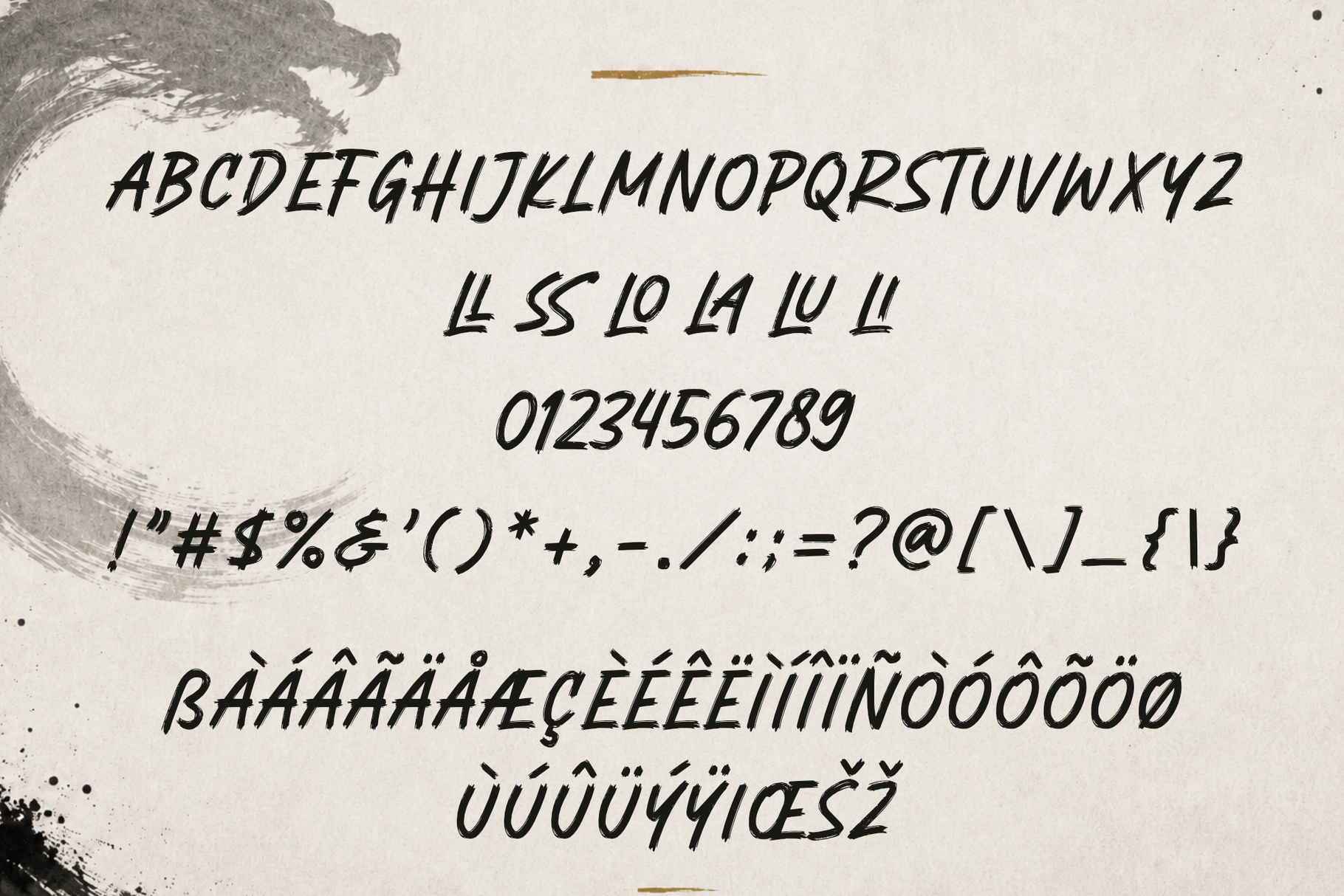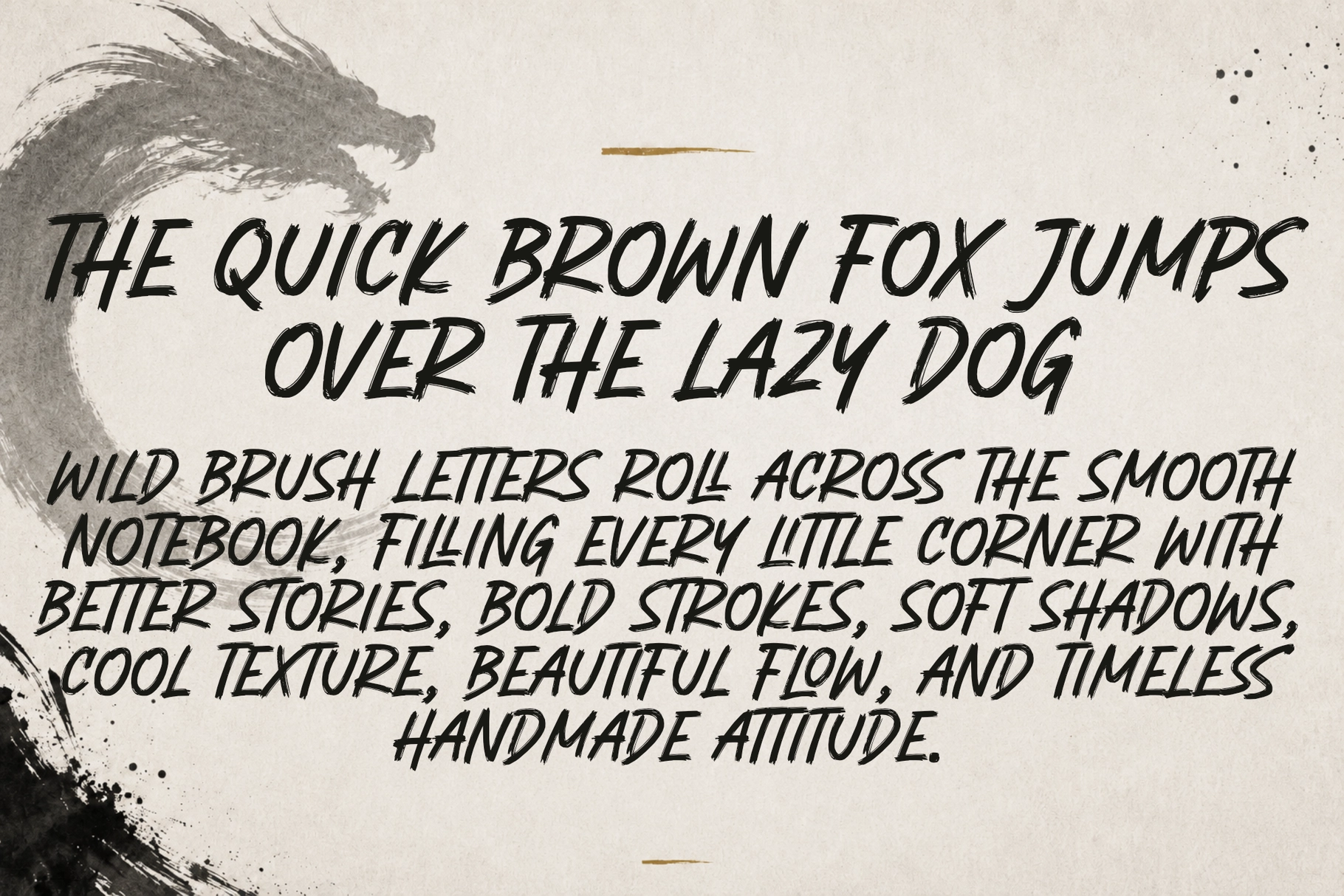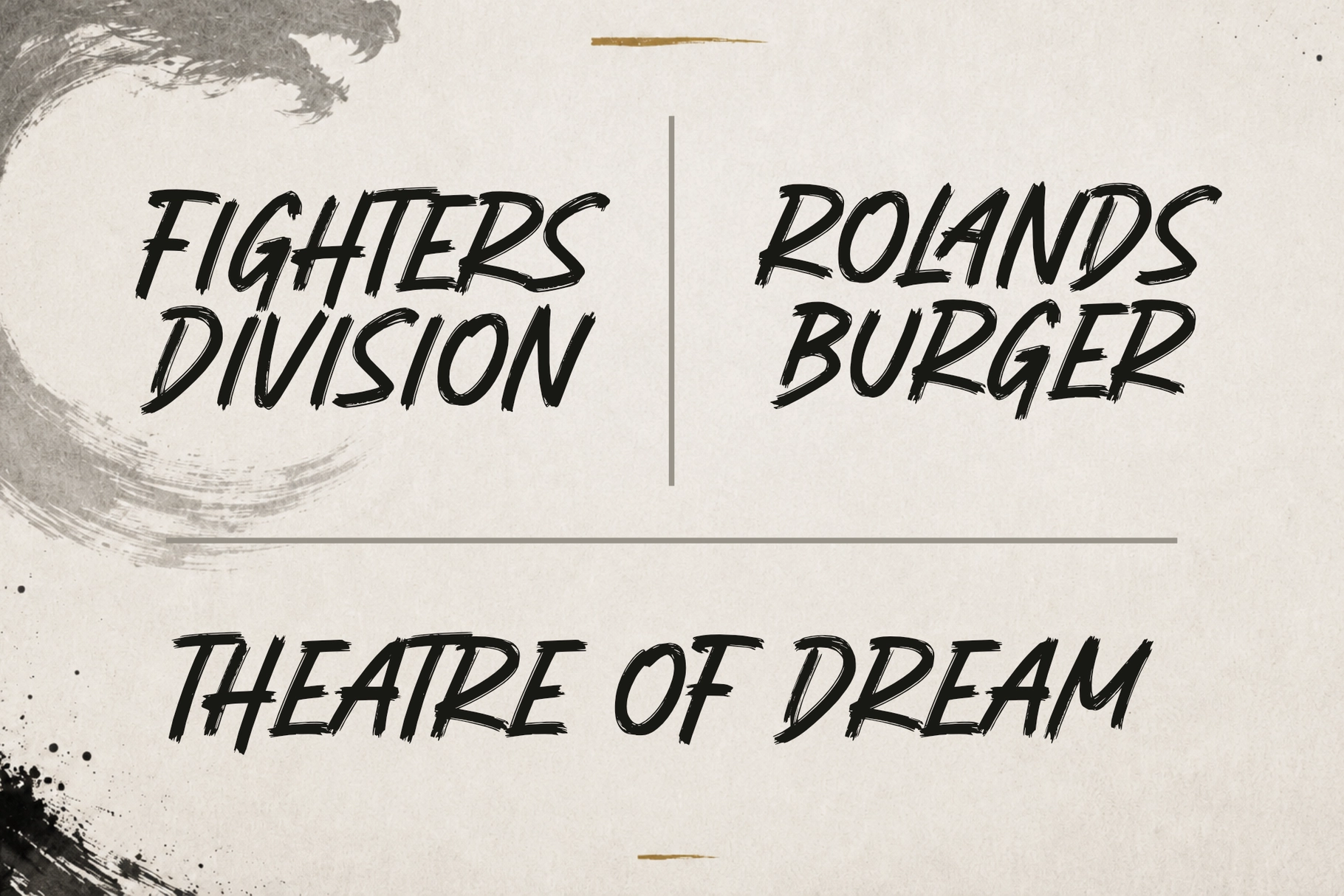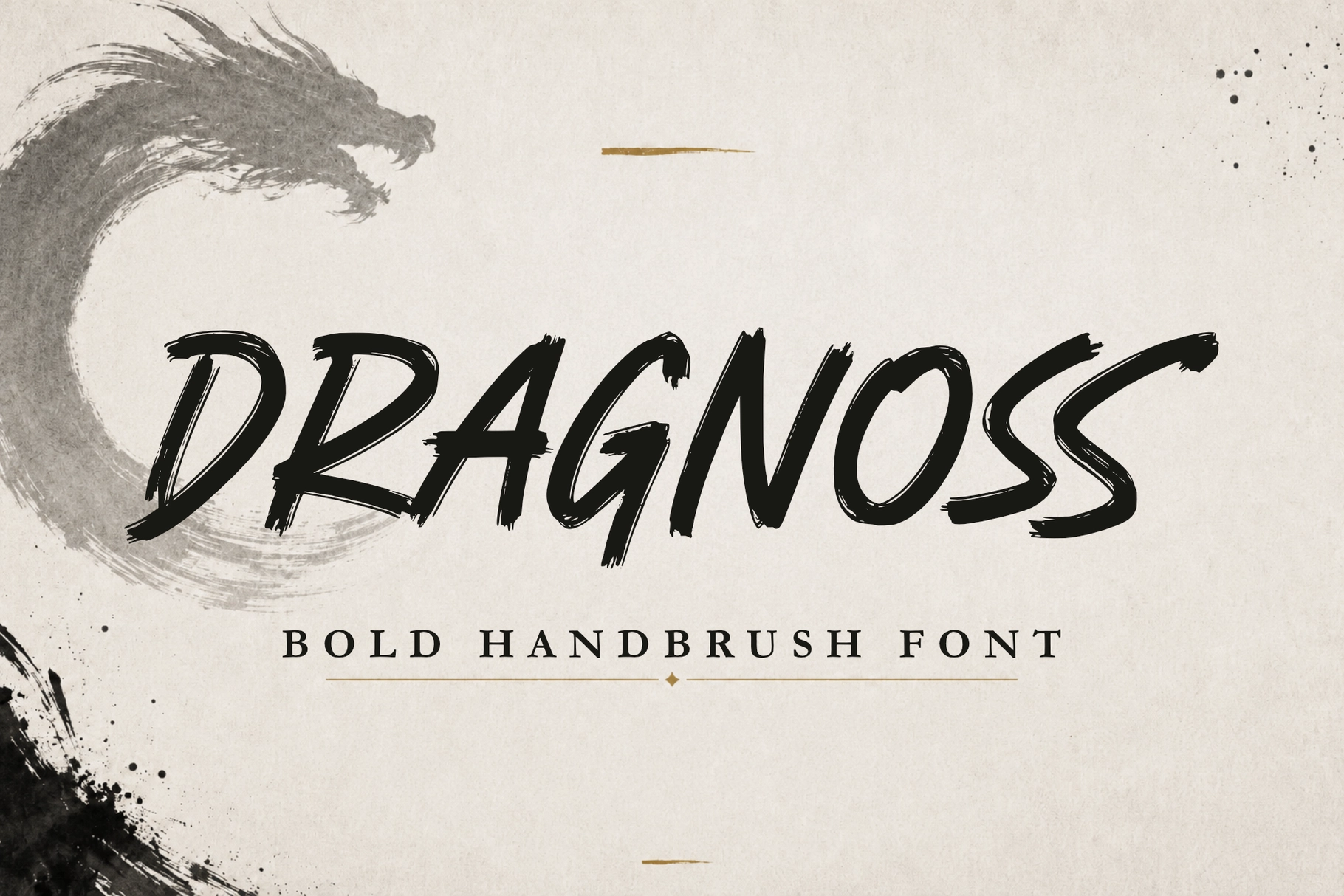
Dragnoss - Bold Handbrush Font
Dragnoss is a bold handbrush font with raw energy, sharp movement, and a powerful handmade feel. Perfect for logos, posters, packaging, apparel, branding, and any design that needs a strong, expressive character.
Dragnoss is a bold handbrush font crafted with strong strokes, rough edges, and an energetic handmade texture. Inspired by the intensity of dry brush lettering, this font brings a fierce, confident, and dramatic look to your creative projects.
Its expressive letterforms make Dragnoss perfect for bold branding, logo design, posters, packaging, merchandise, apparel, social media graphics, album covers, sports visuals, and other display purposes. With its raw brush texture and powerful visual rhythm, Dragnoss is designed to stand out and give your work a strong handcrafted personality.
Whether you are creating a rugged brand identity, a striking headline, or an eye-catching product design, Dragnoss adds a bold and fearless touch to every composition.
BEST FOR
Logos, branding, posters, packaging, labels, social media graphics, quotes,